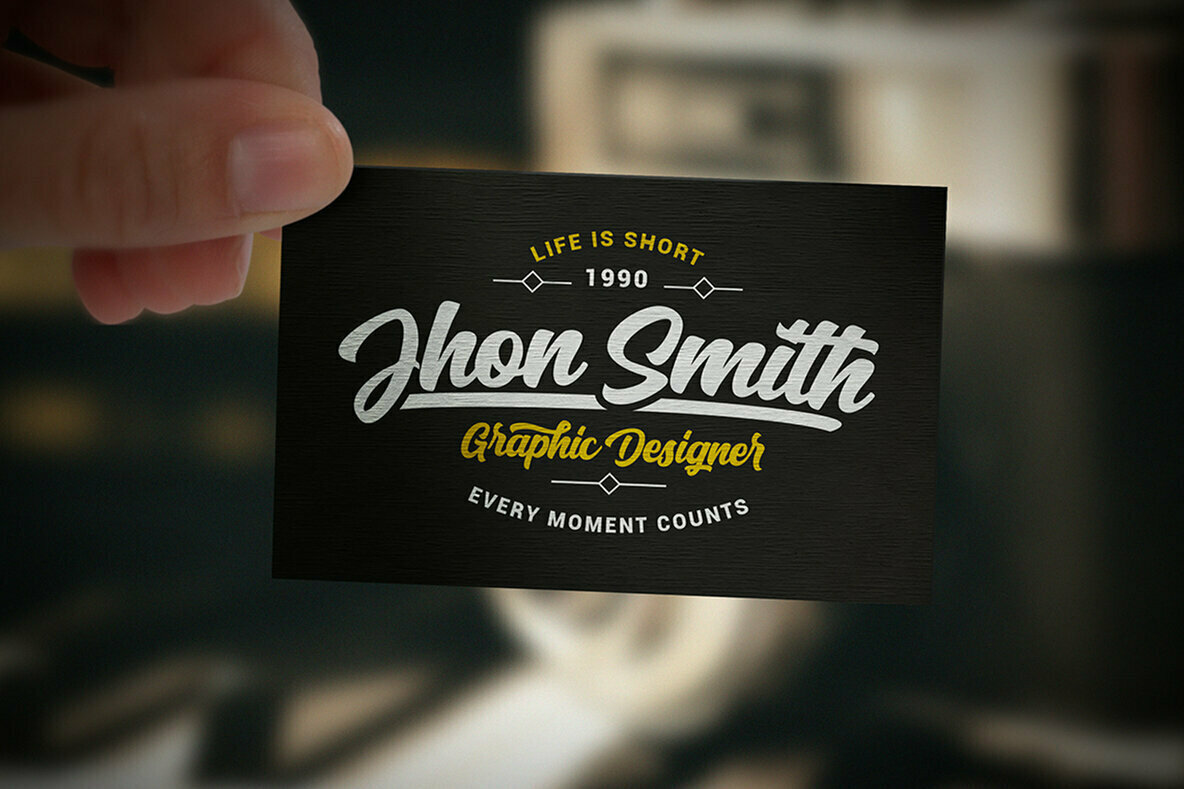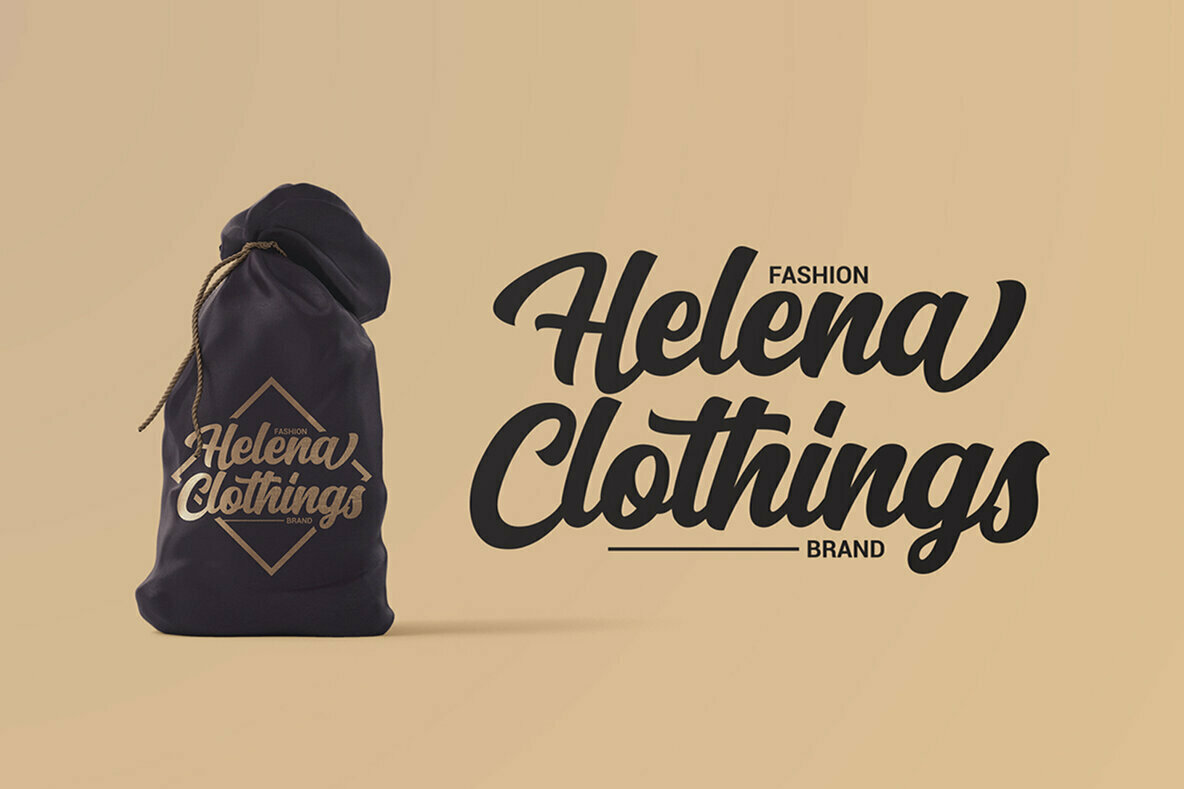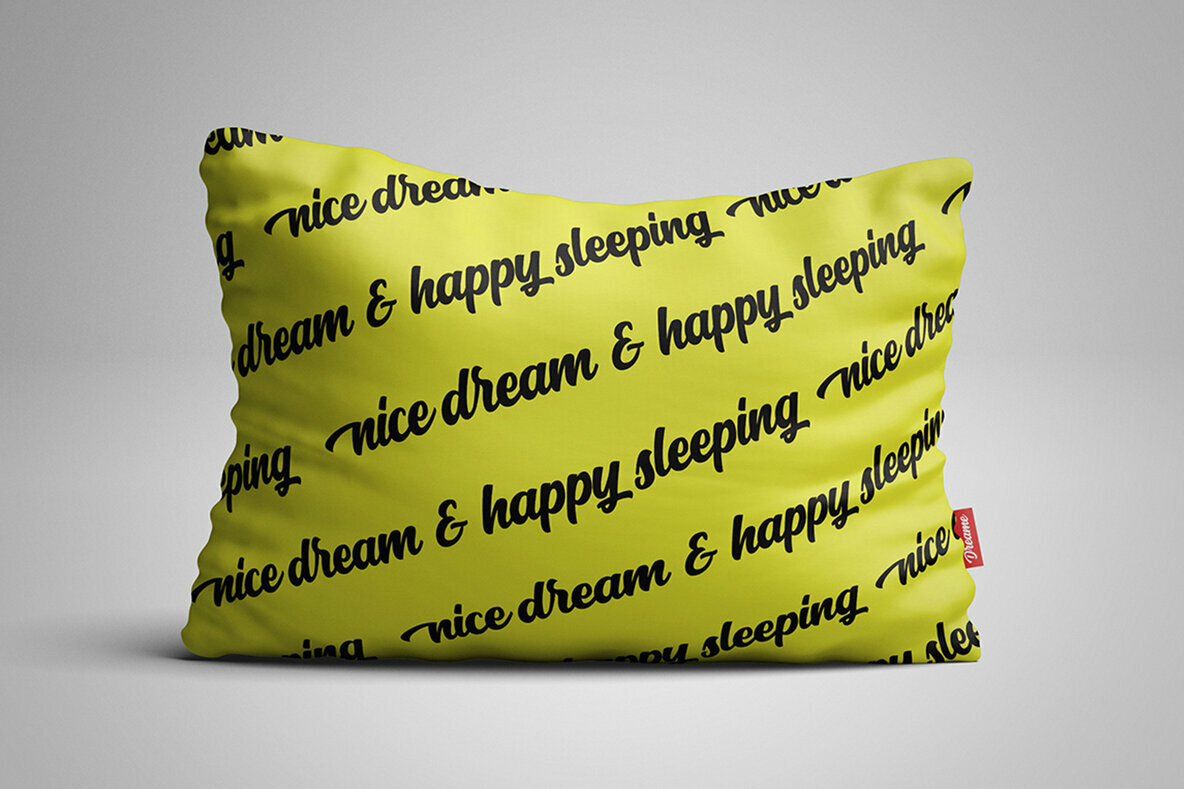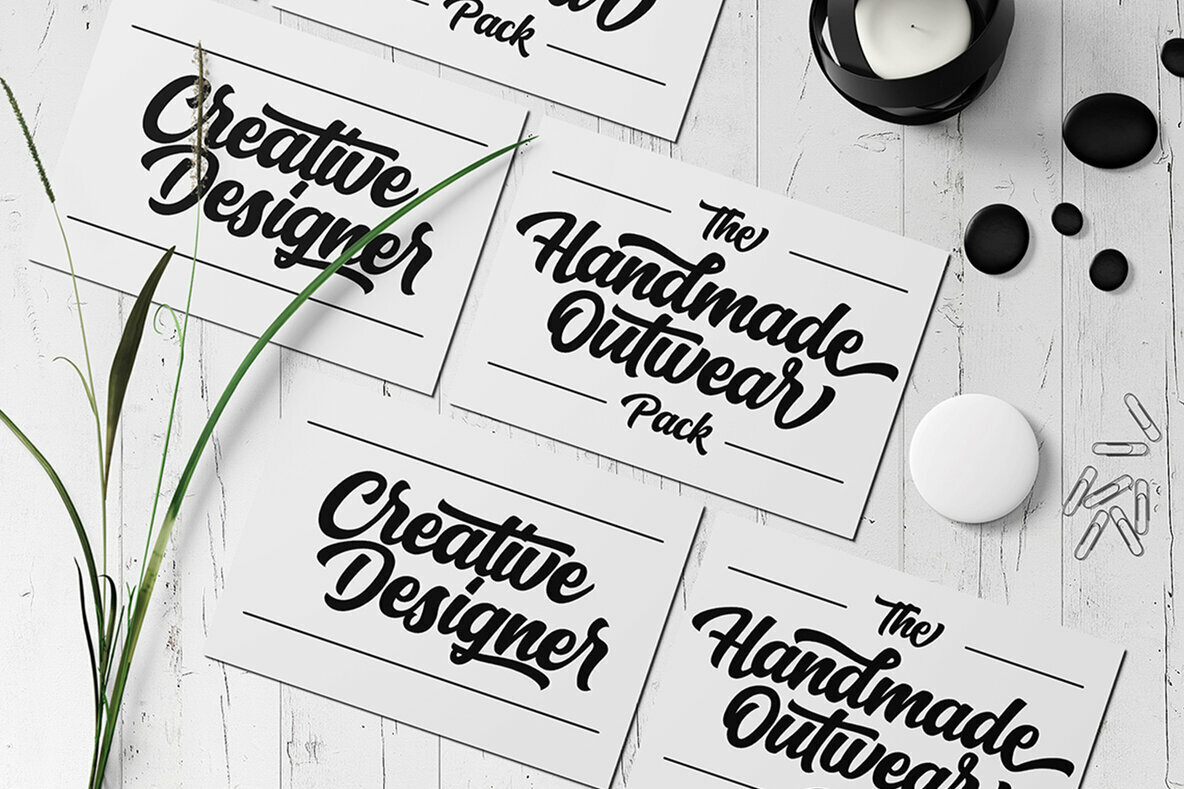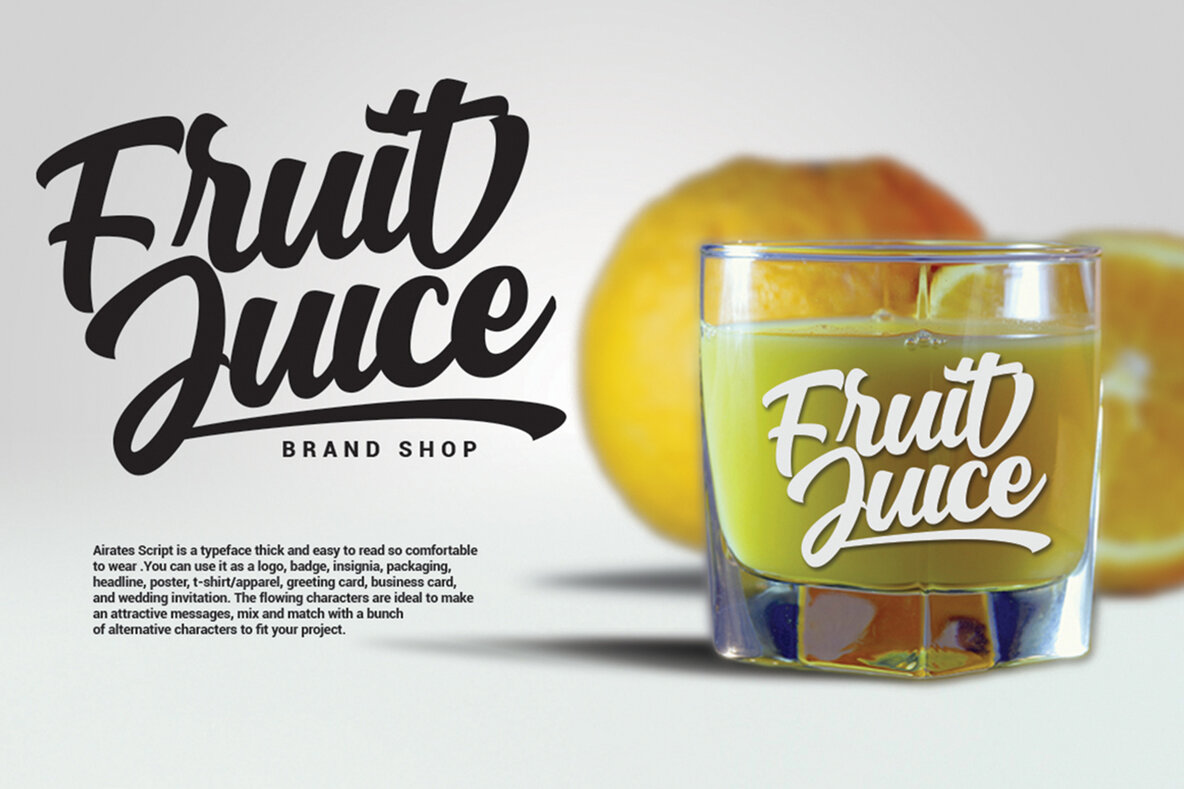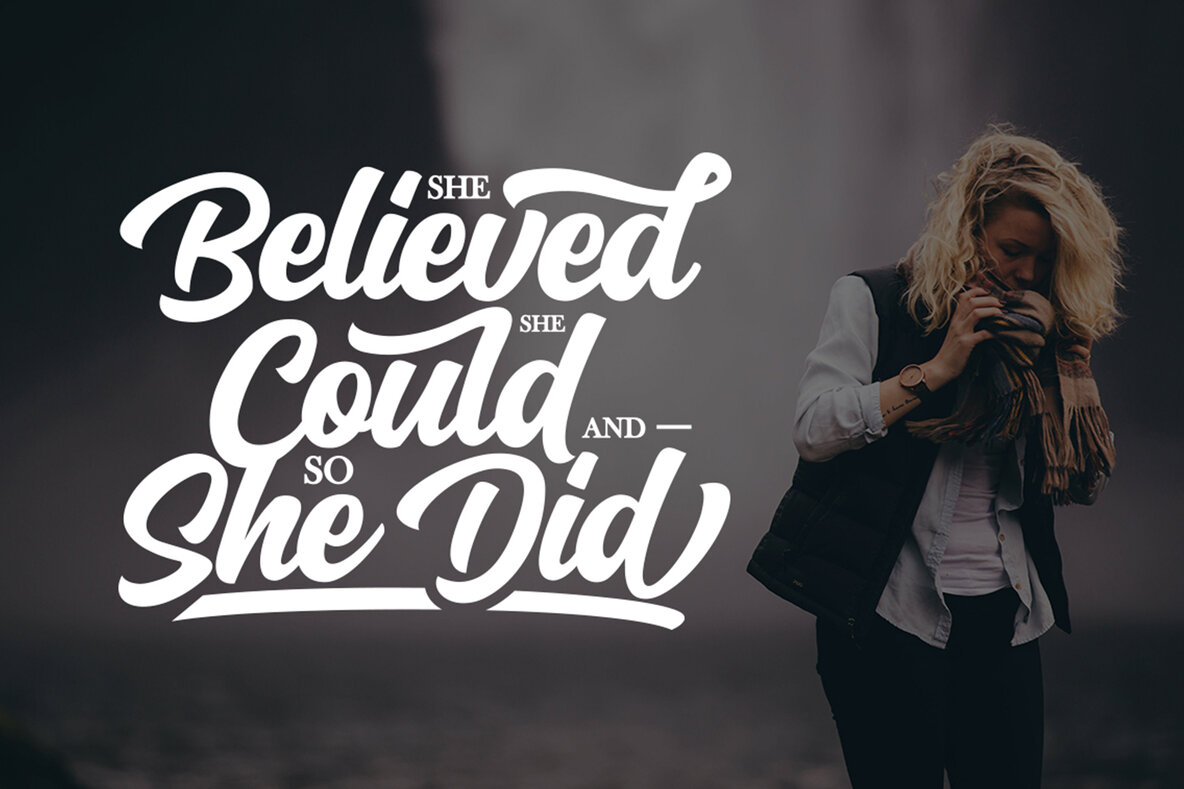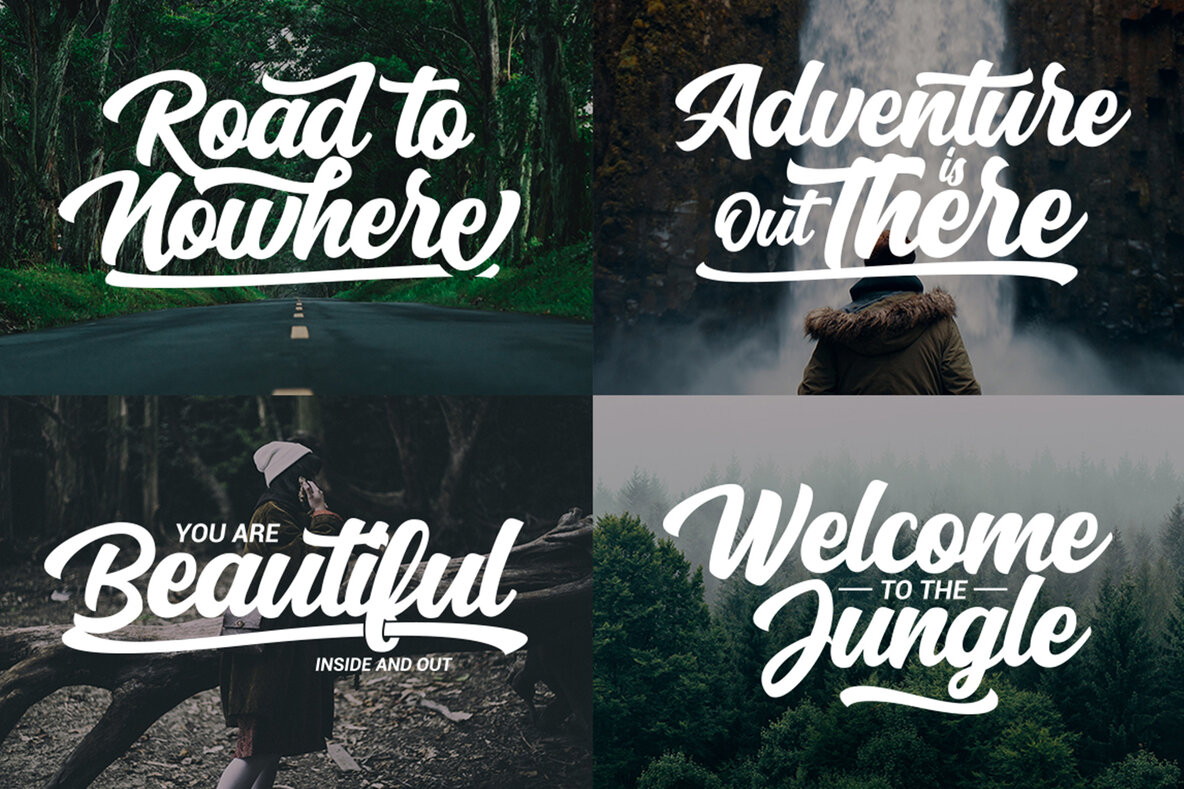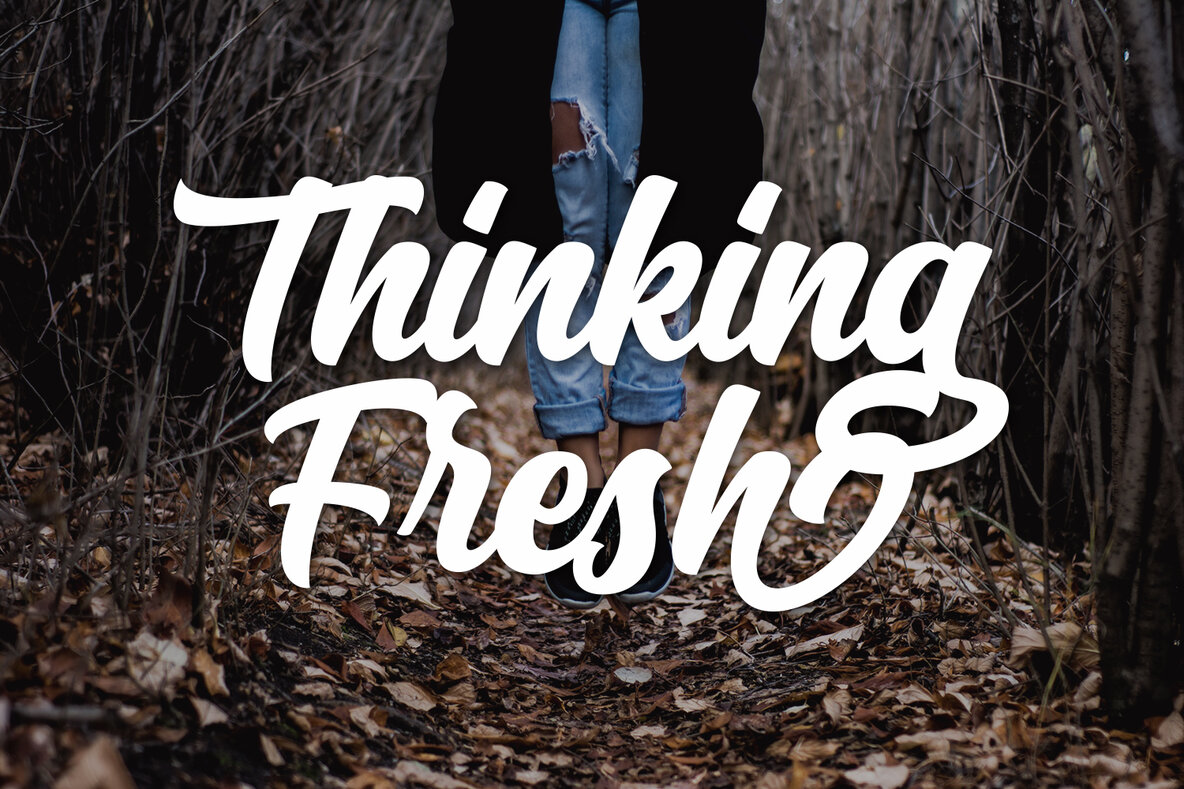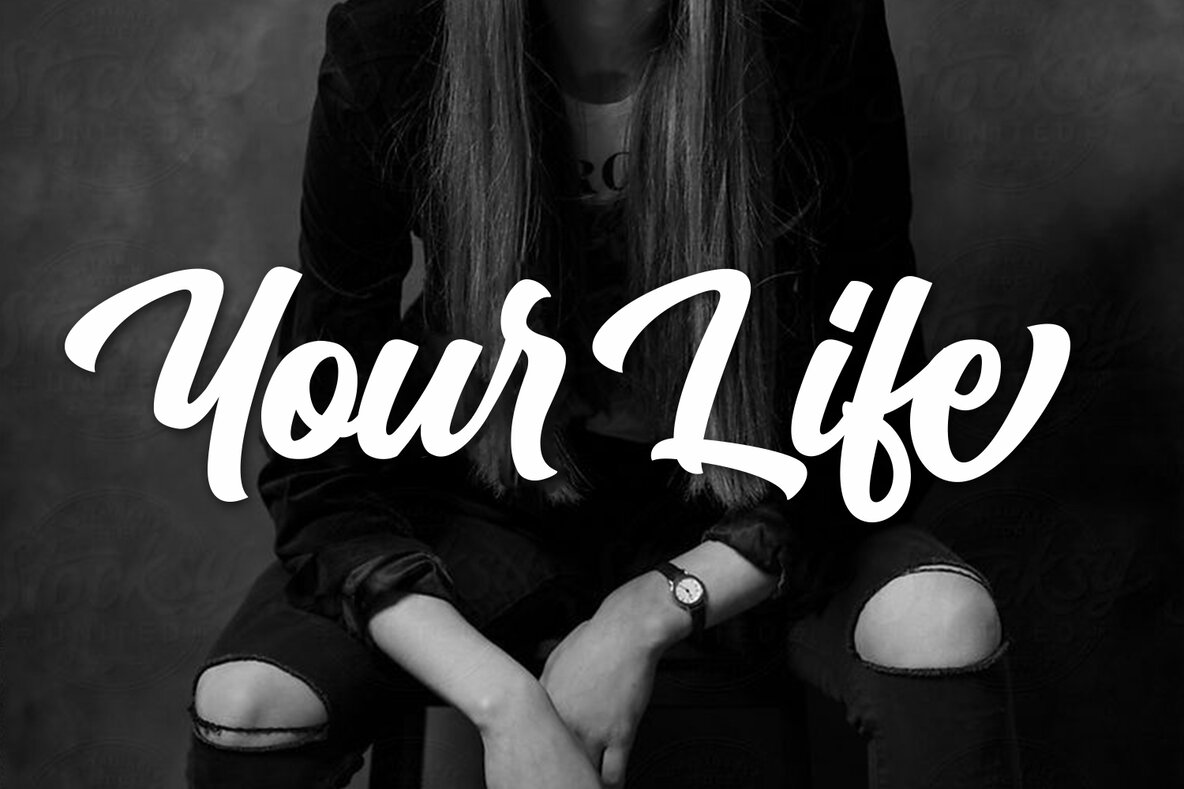
Airates Font
Airates, this is my first font, as the name suggests and because this is my first font that I introduced to the world. Inspired by a film where someone who loses all and returns to struggle to find meaning in life that actually clings to the edge of the world and that's where the beginning of a story seems to be reborn.
Airates Script Fonts is a typeface thick and easy to read so comfortable to wear .You can use it as a logo, badge, insignia, packaging, headline, poster, t-shirt/apparel, greeting card, business card, and wedding invitation and more. The flowing characters are ideal to make an attractive messages to your taste.
Mix and match with a bunch of alternative characters to fit your
will be more interesting if you add swash / alternative swash.
The alternative characters in this font were divided into several OpenType features such as Stylistic Alternates, Ligature and Ligature Alternates.